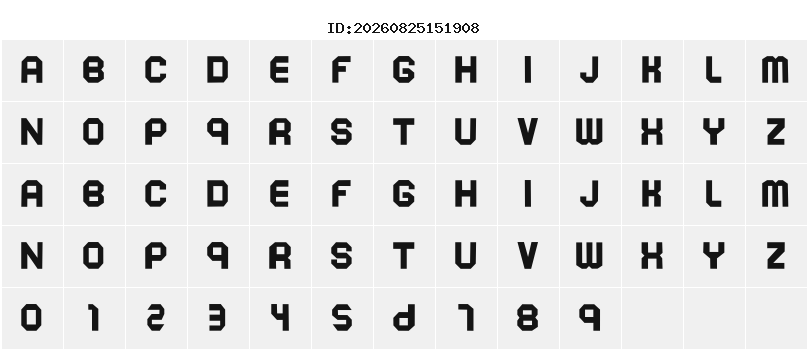
SOEKARNO HATTA Preview
About SOEKARNO HATTA.otf
SOEKARNO HATTA.otf is a modern, elegant sans-serif font designed for ultimate readability and visual harmony. Perfect for branding, headlines, web design, and print materials.